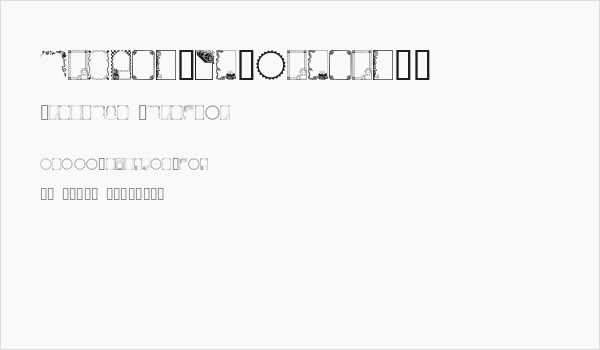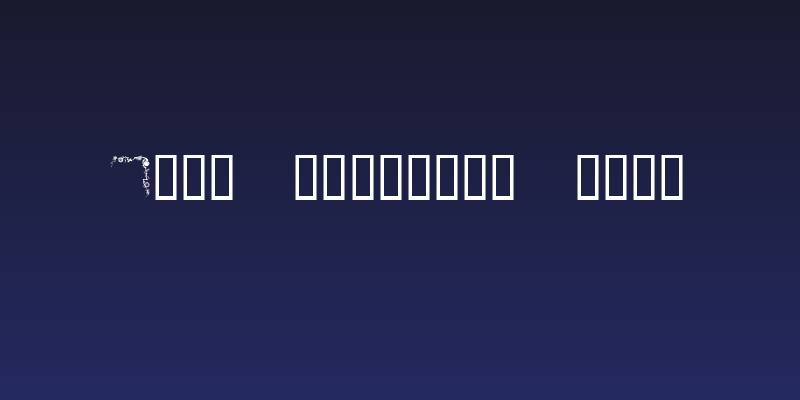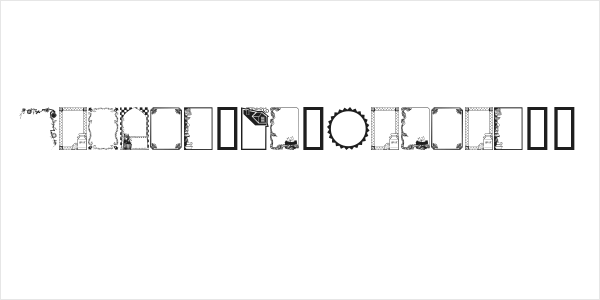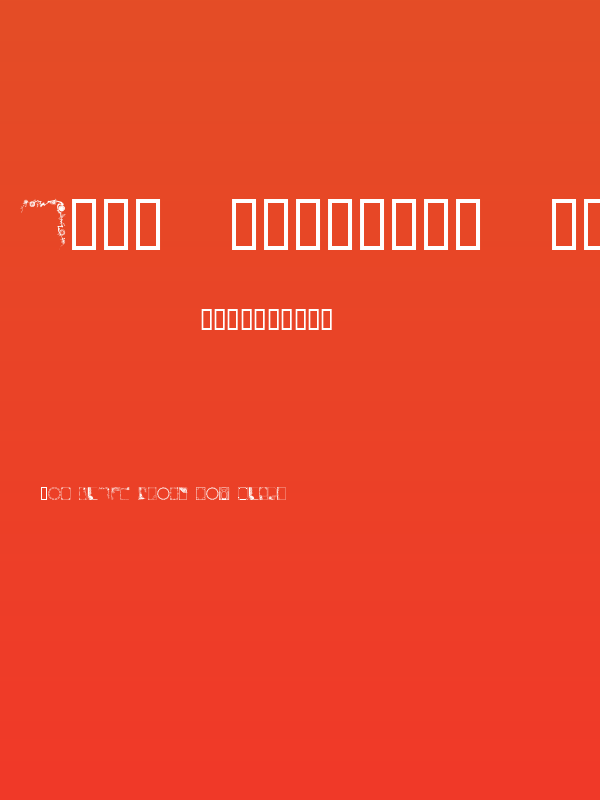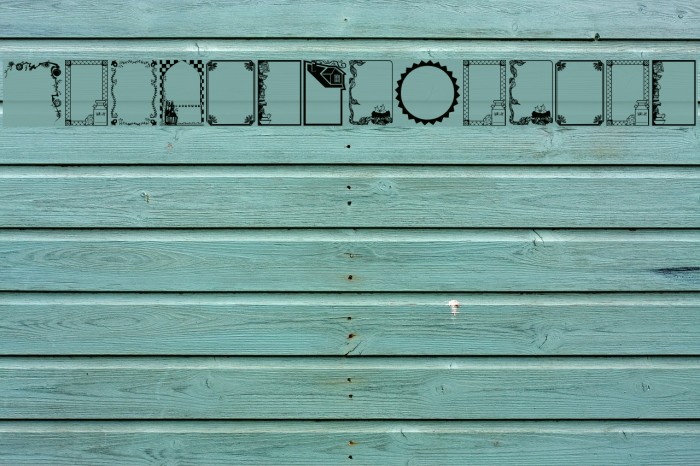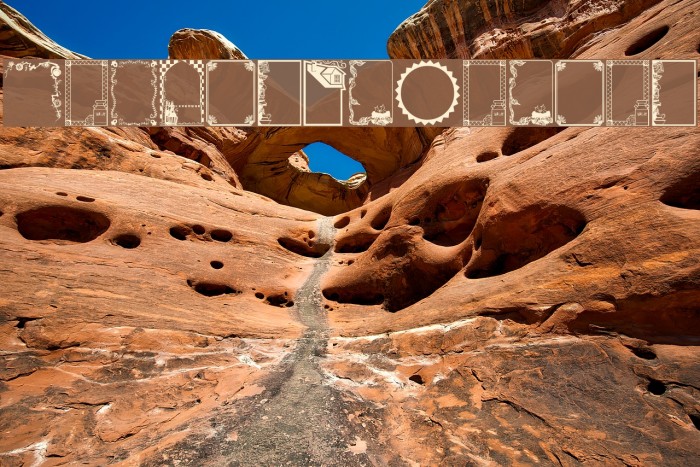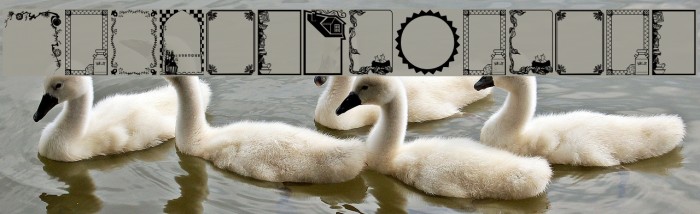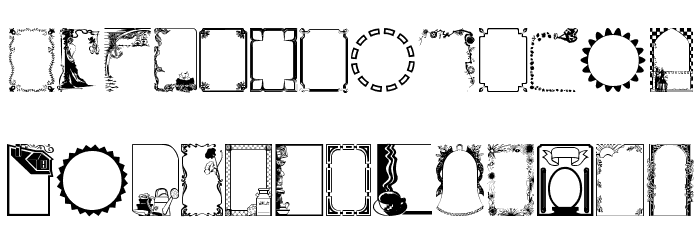
FramesAndBordersII Font
FramesAndBordersII Description
This set features a collection of decorative frames and borders, each uniquely designed with intricate patterns and motifs. The frames vary in style, incorporating elements such as floral designs, geometric shapes, and artistic flourishes. These borders are ideal for adding an elegant touch to invitations, certificates, or any project requiring a sophisticated aesthetic. The diversity in design allows for versatility, making them suitable for both modern and vintage-themed projects. The frames are detailed and ornate, providing a visually appealing enhancement to any layout.
| Use Case | Decorative elements for various design projects. |
| Proposed Projects | Ideal for invitations, certificates, scrapbooking, and decorative projects. |